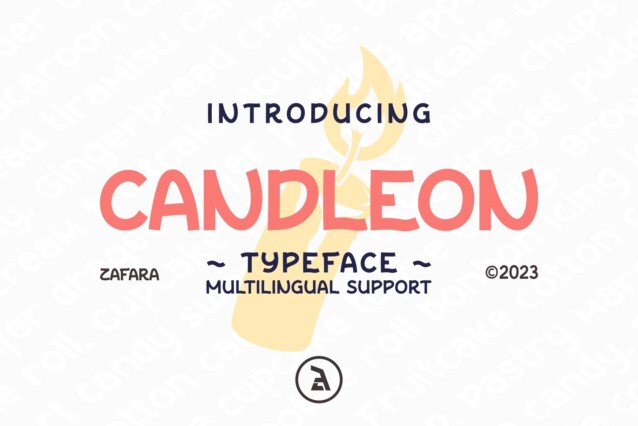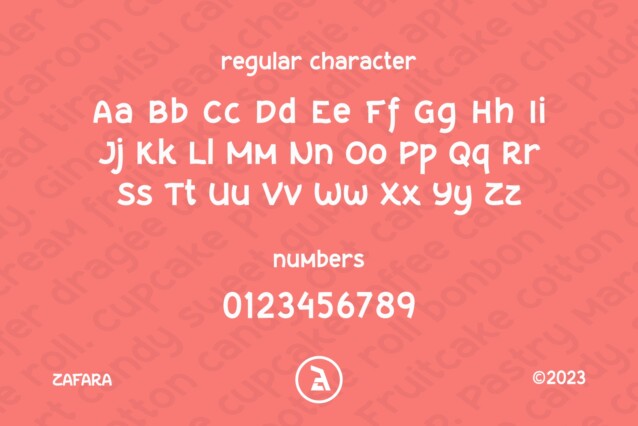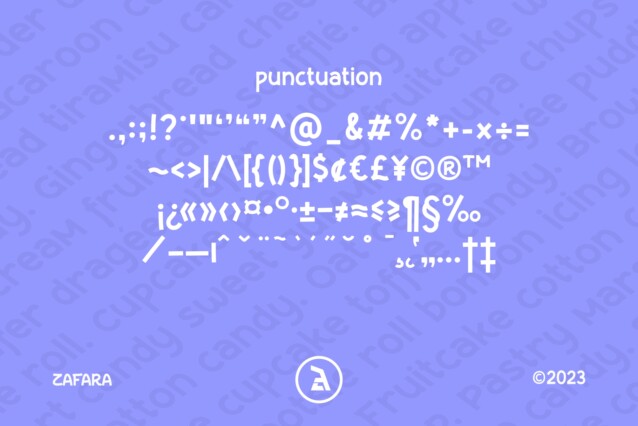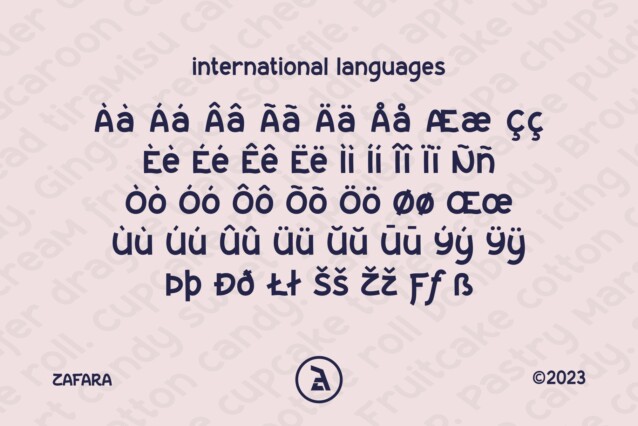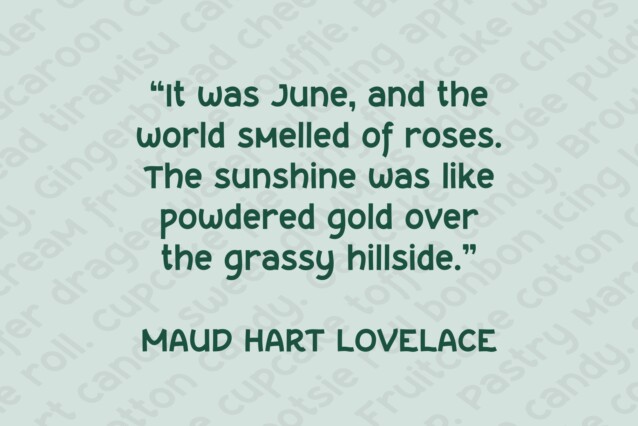
Candleon Font
Candleon Font is a sweet and playful display font that adds a charming touch to any project. With its rounded shapes and friendly design, this typeface is perfect for creating eye-catching headlines, logos, product packaging, and social media graphics. Its cheerful and versatile style makes it ideal for a variety of themes, from children’s products to candy shop branding.